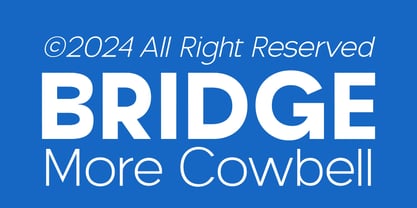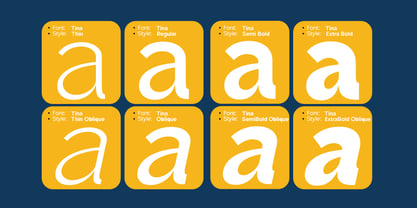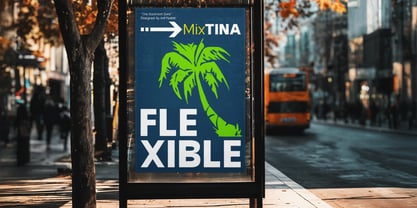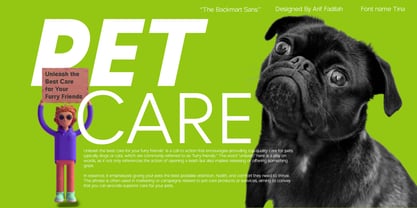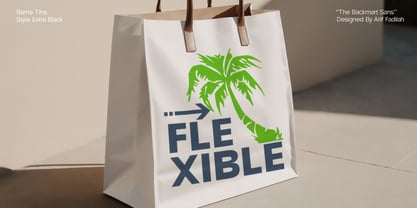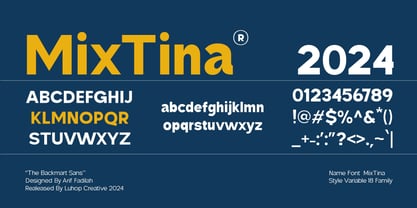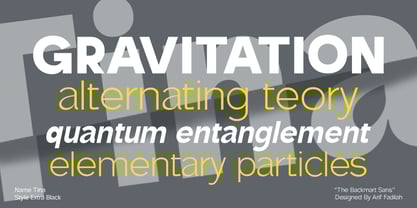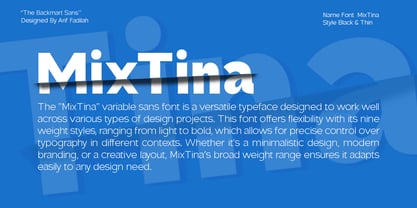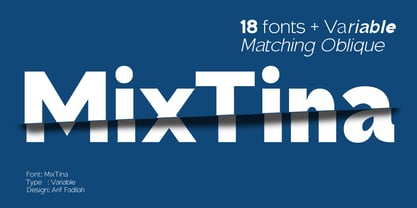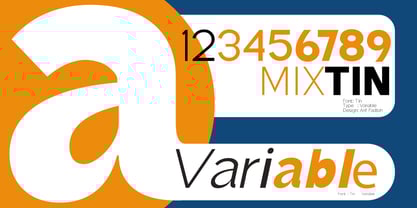
MixTina
The MixTina Font Family was designed by Arif Fadilah and published by Luhop Creative. MixTina contains 19 styles and family package options. More about this family
The "MixTina" variable sans font is a versatile typeface designed to work well across various types of design projects. This font offers flexibility with its nine weight styles, ranging from light to bold, which allows for precise control over typography in different contexts. Whether it's a minimalistic design, modern branding, or a creative layout, MixTina’s broad weight range ensures it adapts easily to any design need.
Additionally, the font includes Oblique styles, which give designers the ability to add a touch of emphasis or elegance to the text, further enhancing its usability in diverse design environments. The combination of variable weights and italics makes MixTina a comprehensive and adaptable choice for everything from web design to print, ensuring high legibility and style in every application.
Thanks to its clean and modern appearance, MixTina is suitable for logos, headlines, body text, or any project that requires a contemporary sans-serif font with a wide range of options to fit any visual tone.